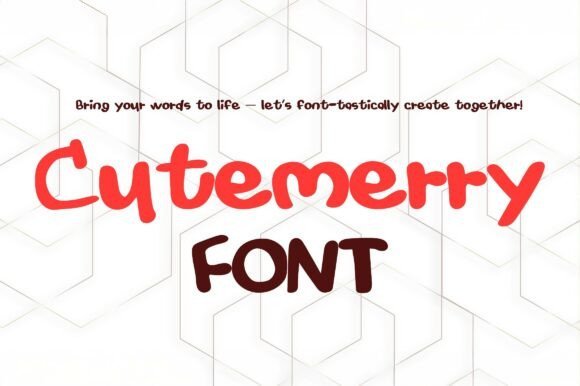
Introduction to Cutemerry Font
Cutemerry is a soft and cozy handwritten typeface that wraps your words in warmth and charm.
With its gentle curves and natural flow, this font is perfect for designs that need a touch of comfort β€” from holiday greeting cards, children’s books, and cozy winter prints to gift tags, packaging, and journaling projects Each letter feels lovingly hand-written, giving your work a friendly and heartfelt look.